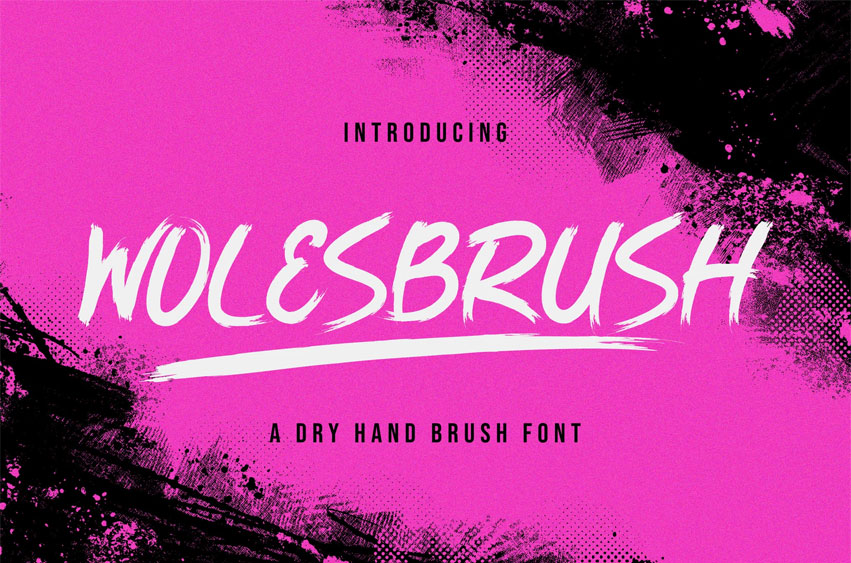
Wolesbrush Font is an elegant handwritten font which perfect for your design projects like logos, signatures, invitations, stationery, wedding photos, watermarks, social media posts, advertisements, posters, product packaging, labels, photography, event posts, and other designs.
- Uppercase and Lowercase letters
- Numbering and Punctuation
- Ligature Characters
- Brush Swashes
- Multilingual Support